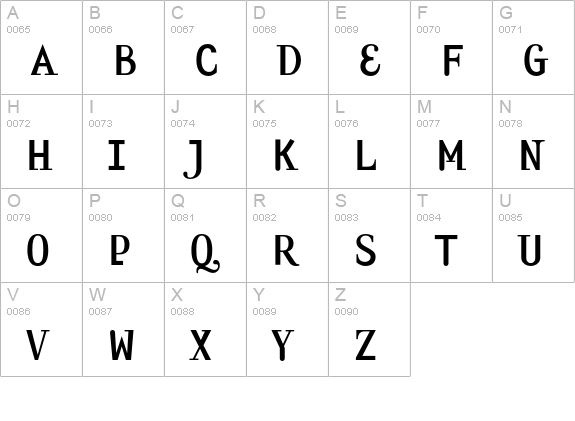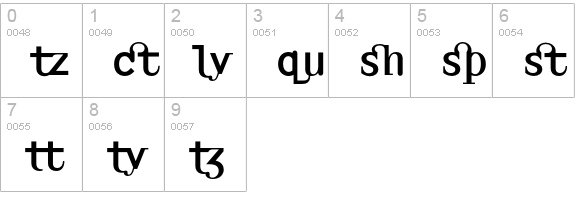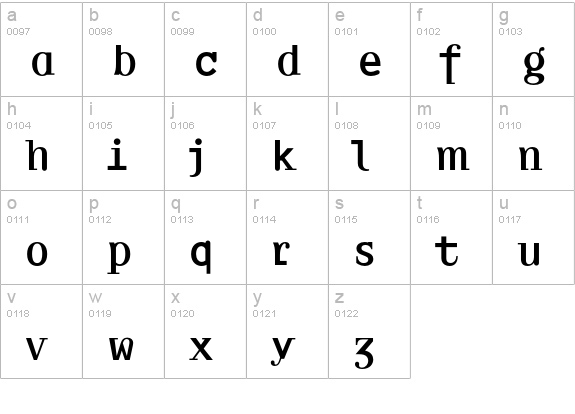
AmplifierLightLigatures Font Details
AmplifierLightLigatures font is a modern and sophisticated typeface that exudes elegance and versatility. With its sleek lines and stylish ligatures, this font is perfect for adding a touch of sophistication to any design project. Whether you're creating a logo, branding materials, or a website, AmplifierLightLigatures font will elevate your work to the next level. What sets this font apart is its unique ligatures that add a special touch to your typography. These ligatures seamlessly blend together to create a harmonious and polished look that will make your text stand out. Best of all, AmplifierLightLigatures font is available for free download at FontsMarket.com. So, whether you're a professional designer or just starting out, you can easily access this stunning font and bring your creative vision to life. Don't miss out on the opportunity to enhance your designs with the elegance and sophistication of AmplifierLightLigatures font.